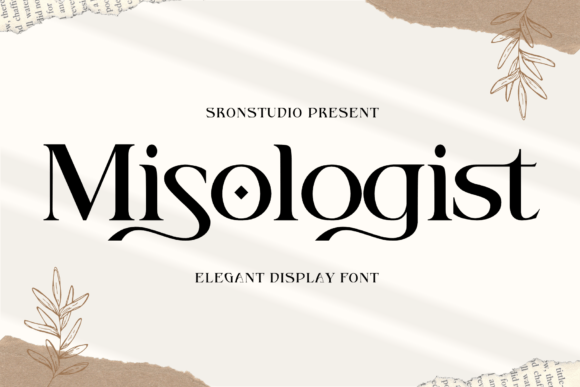
Adorn your designs with the exquisite Misologist font, a serif masterpiece that exudes elegance and sophistication. Crafted with meticulous attention to detail, each stroke and curve is a testament to the artistry of its creator, Sronstudio.
Indulge in the versatility of this font, perfectly suited for an array of creative endeavors. From branding projects that demand an air of distinction to invitations that evoke a touch of whimsy, Misologist seamlessly adapts to your vision.
With its timeless appeal, Misologist transforms stationery into cherished keepsakes and elevates wedding designs to ethereal heights. Its presence on social media posts and advertisements guarantees an unforgettable impact, captivating your audience with its undeniable charm.
Product packaging and designs adorned with Misologist exude an air of sophistication, while its elegant swashes add a touch of allure to labels and photography. For special events, this font becomes an indispensable companion, adding a touch of magic to watermarks and creating an atmosphere of unparalleled elegance.
But Misologist is not merely a decorative tool; it's a powerful instrument that unlocks your creative potential. Its PUA encoding ensures effortless access to a treasure trove of glyphs and swashes, empowering you to unleash your imagination and create designs that transcend the ordinary.
Embrace the allure of Misologist and embark on a creative journey where every stroke is a masterpiece. Allow this font to inspire your designs, elevate your projects, and leave an enduring mark on the hearts of your audience.